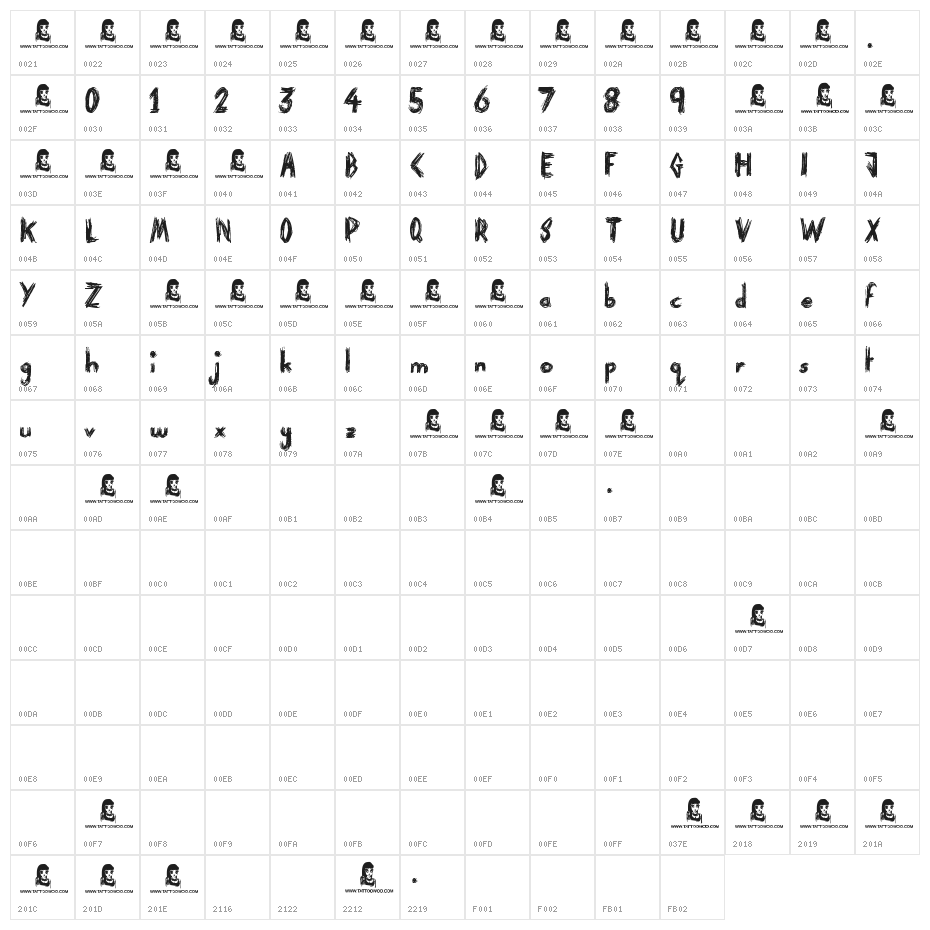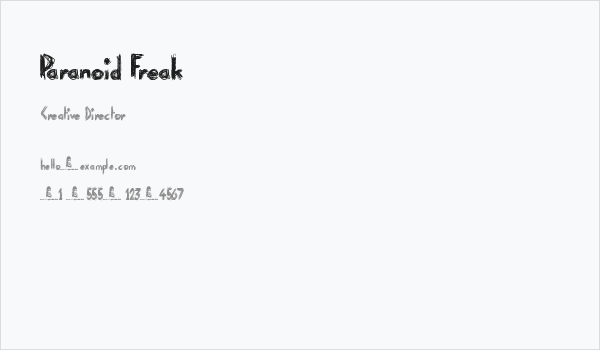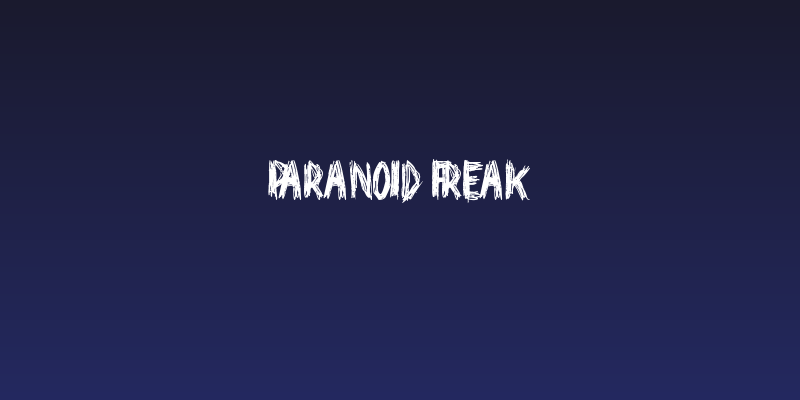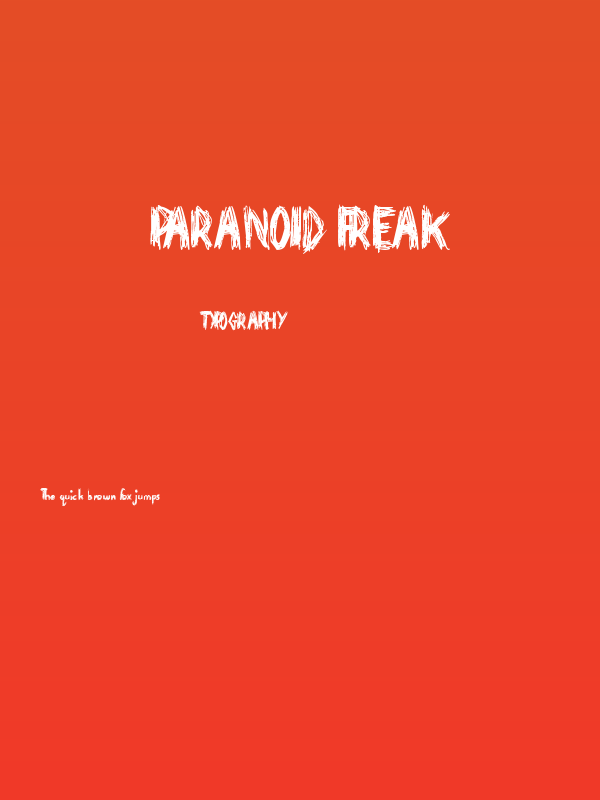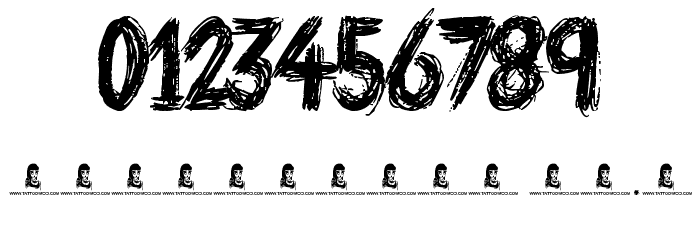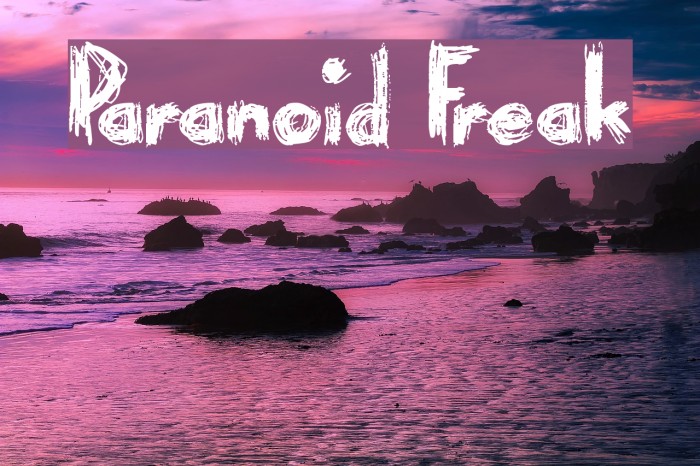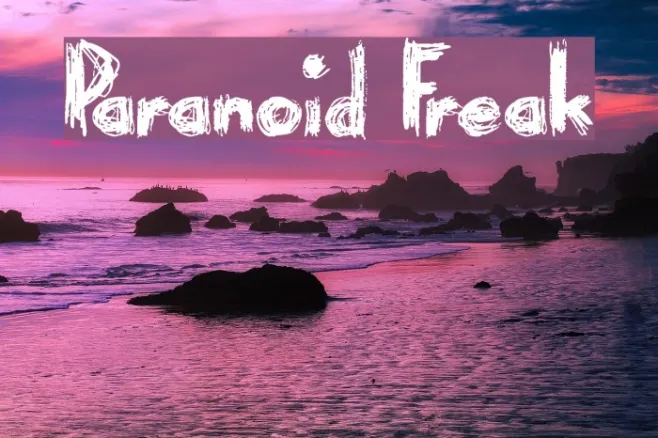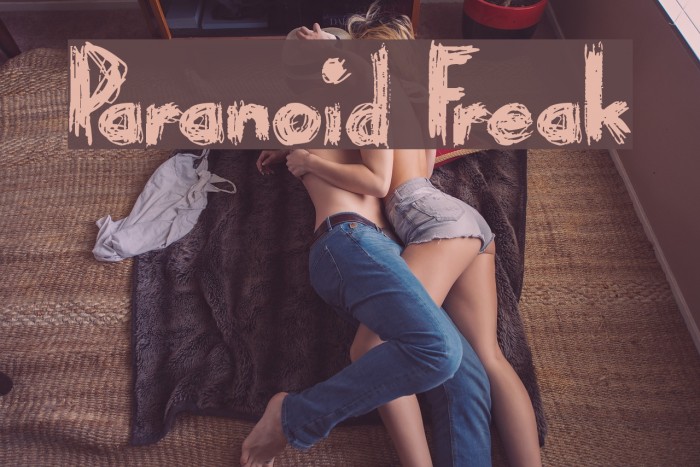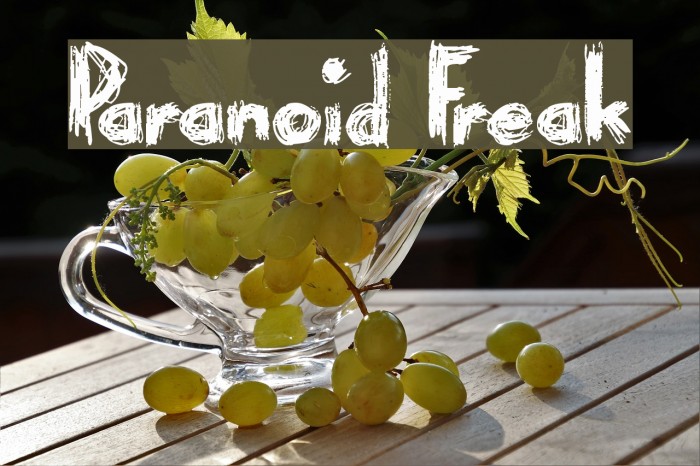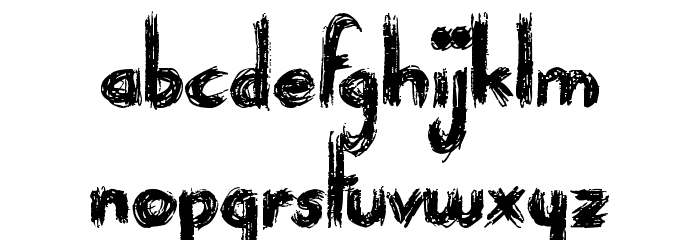
Paranoid Freak Font
Paranoid Freak Description
This font exhibits a bold, distressed style with a hand-drawn appearance. The characters are irregular and jagged, giving a chaotic and edgy feel. The strokes are thick and uneven, with a rough texture that suggests a sense of urgency or intensity. The uppercase and lowercase letters maintain this rugged aesthetic, while the numbers and special characters follow suit with the same raw, expressive quality. This font is ideal for projects that require a dramatic and unconventional look.
| Use Case | Headlines, Posters, Logos |
| Proposed Projects | Ideal for album covers, horror movie posters, edgy branding, or any project needing a dramatic, unconventional look. |